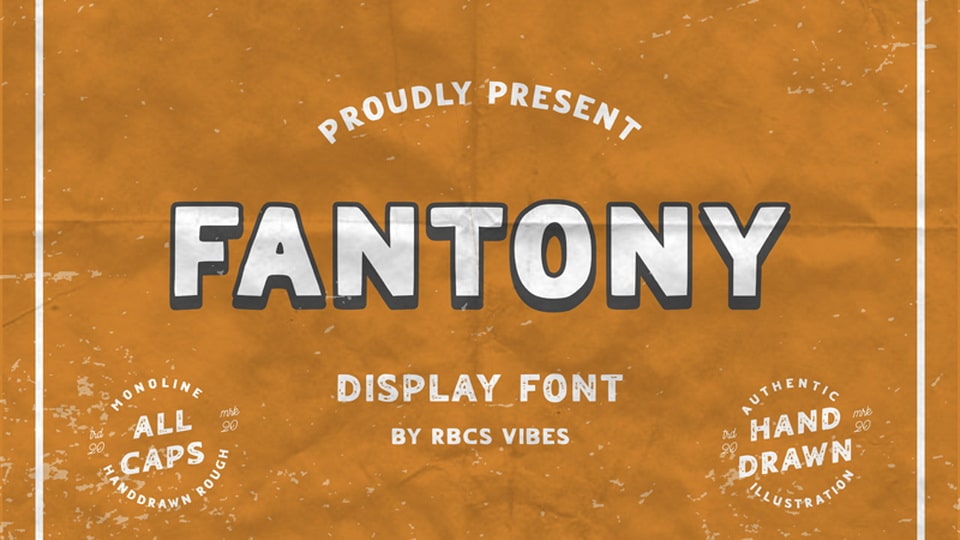
Download Fantony font, a hand drawn display typeface with vintage look. Fantony font gives a casual, sketchy feel that pairs great with illustrations, while still keeping a clean and readable look.
Designer: RBCS Studio